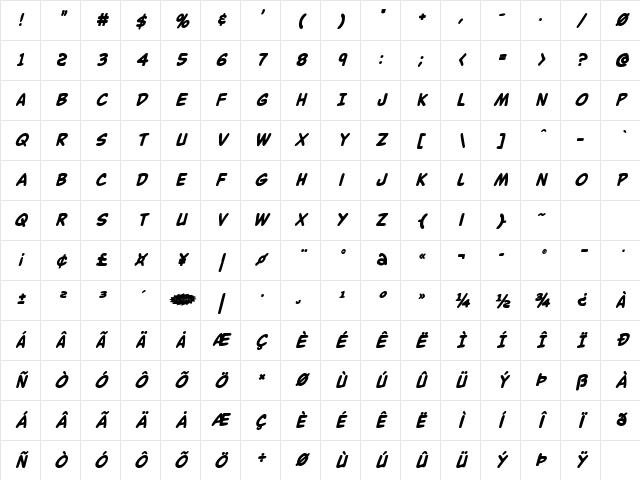
Buddy Champion Bold Italic Bold Italic
Design Context for Buddy Champion Bold Italic
Buddy Champion Bold Italic is a composed and adaptable typeface that performs quietly and consistently across a wide range of design contexts. The slanted form adds forward momentum and visual energy. Its bold stroke weight gives it real presence on the page.